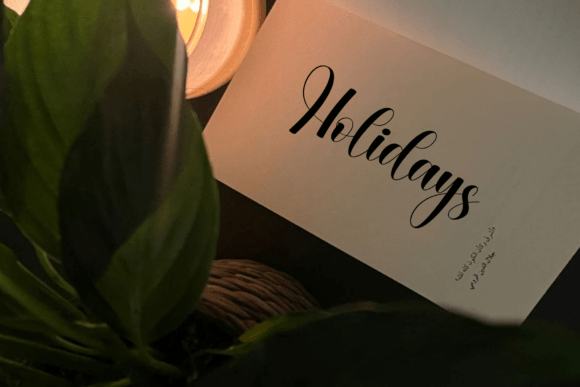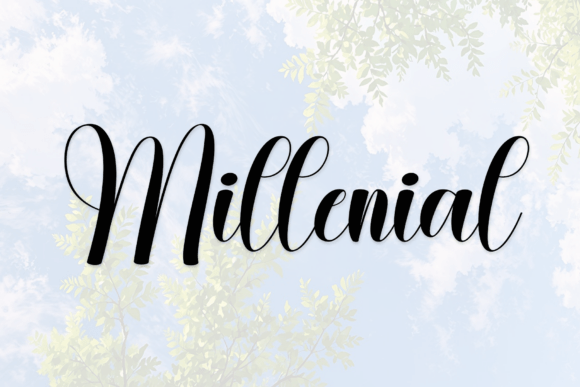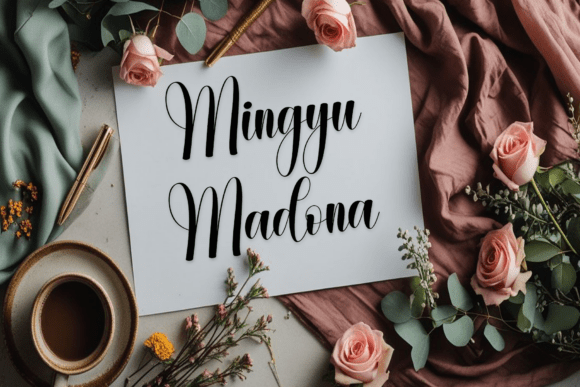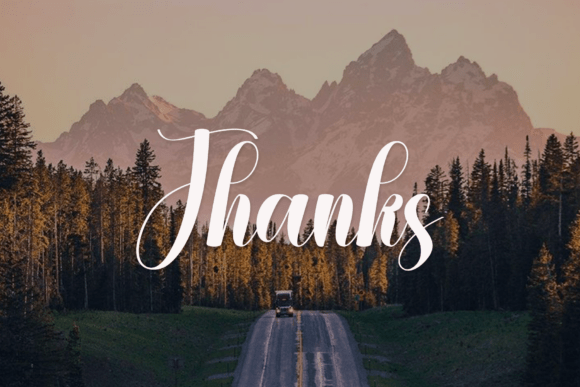
Dustilldown Font: Elevate Your Designs with Elegance and Sophistication
In the world of typography, few fonts capture the essence of charm and sophistication as beautifully as Dustilldown. This stunning script font is designed to add a touch of elegance to any design project, making it perfect for creative professionals, designers, and crafters looking to elevate their work. With its smooth curves and handwritten feel, Dustilldown is an excellent choice for a variety of applications, from wedding invitations and personal branding to elegant packaging and romantic quotes.
The Beauty of Dustilldown
Dustilldown is a masterpiece of font design, boasting a flowing script style that exudes refinement and luxury. Its smooth, connected letters create a sense of fluidity, making it perfect for designs that require a touch of sophistication. The font’s handwritten feel adds a personal touch, making it ideal for projects that require a more intimate and emotional connection with the audience.
Perfect for Wedding Invitations and Personal Branding
Wedding invitations, save-the-date cards, and other wedding-related materials are a perfect fit for Dustilldown. The font’s elegant and romantic feel sets the tone for a beautiful and memorable wedding celebration. Additionally, Dustilldown is an excellent choice for personal branding, as it adds a touch of sophistication and refinement to logos, business cards, and other marketing materials.
Elegant Packaging and Romantic Quotes
Dustilldown is also perfect for elegant packaging designs, adding a touch of luxury and sophistication to product labels, boxes, and other packaging materials. Furthermore, the font’s romantic feel makes it ideal for designs that feature romantic quotes, poems, or phrases. Whether you’re creating a beautiful typographic print or a heartfelt social media post, Dustilldown is the perfect choice.
Why Choose Dustilldown?
So, why choose Dustilldown over other script fonts? Here are just a few reasons:
- Unique and elegant design: Dustilldown boasts a unique and elegant design that sets it apart from other script fonts.
- Versatile: The font is versatile and can be used for a variety of design projects, from wedding invitations to elegant packaging.
- Handwritten feel: Dustilldown’s handwritten feel adds a personal touch to any design project.
- Easy to read: Despite its elegant and cursive nature, Dustilldown is easy to read, making it perfect for designs that require a clear and legible font.
Tips for Using Dustilldown
To get the most out of Dustilldown, here are a few tips:
- Use it sparingly: While Dustilldown is a beautiful font, it’s best to use it sparingly to avoid overwhelming the design.
- Pair it with a sans-serif font: Pairing Dustilldown with a sans-serif font creates a beautiful contrast and adds visual interest to the design.
- Experiment with font sizes: Don’t be afraid to experiment with different font sizes to create visual hierarchy and add emphasis to certain design elements.
In conclusion, Dustilldown is a beautifully flowing script font that radiates charm and sophistication. With its smooth curves and handwritten feel, it’s perfect for a variety of design projects, from wedding invitations and personal branding to elegant packaging and romantic quotes. Whether you’re a designer, crafter, or creative professional, Dustilldown is an excellent choice for adding a touch of elegance and refinement to your work.